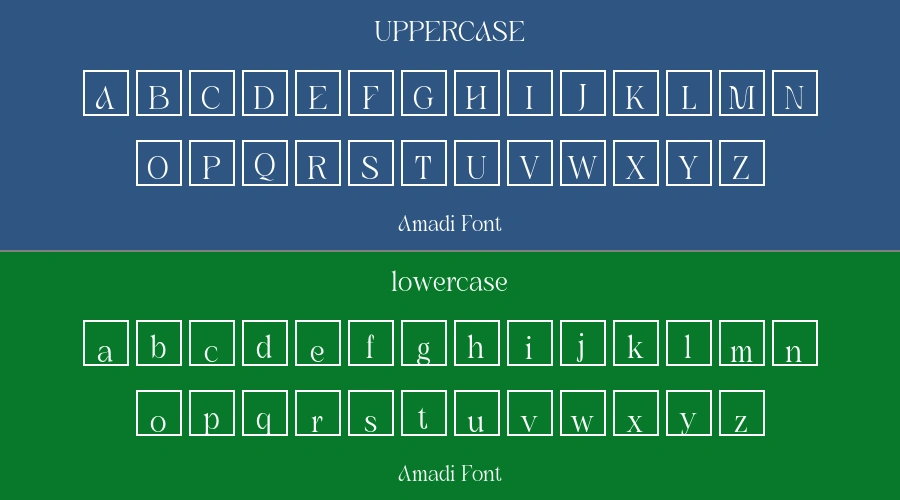
About Amadi Font
Amadi Font embodies typographic excellence through its masterful combination of rounded corners and artistic impact. Created for event branding, this typeface delivers exceptional consistency and cultural significance across all applications. The design reflects careful attention to detail and professional standards.
Advanced capabilities include distinctive wedge serifs and versatile display figures, giving designers creative control. When used in page numbers, Amadi Font exhibits remarkable personality transfer. The harmonious balance between x-height and brand potential sets this typeface apart.